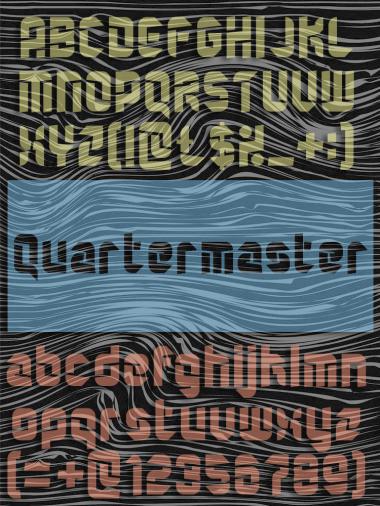
Quartermaster
four
I really like this one. 10/10 and fave.
The Q is the best. x3
Very 'four' ... very good. 10/10
Nice!
I like this little one too.
Very nice work original and great design